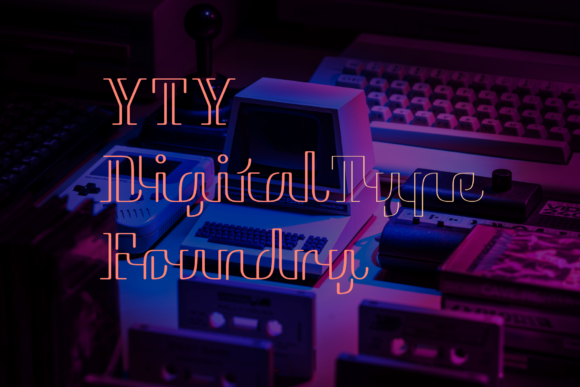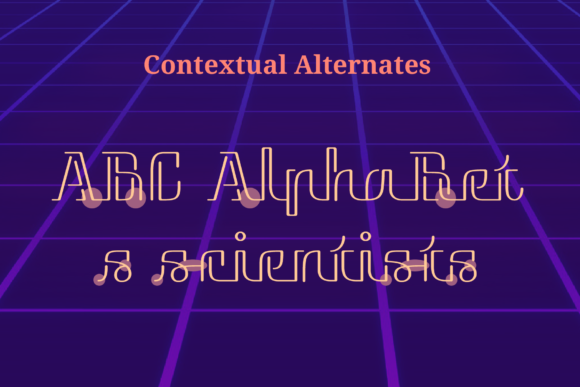
The Electlilywave Font: A Modern Design Game-Changer
I’ll never forget the moment I stumbled upon the perfect font for a project. I was working late, trying to meet a tight deadline, and my design was just not coming together. My client wanted something modern, edgy, and attention-grabbing, but I was stuck in a creative rut. That’s when I discovered Electlilywave – a cool, techno-looking display font that instantly elevated my design and made it shine. In this article, I’ll share my experience with Electlilywave, its features, and how to make the most of it in your designs.
An Honest Review of Electlilywave
So, what makes Electlilywave special? Here are some things I love about this font:
- ✨ Modern and edgy look: Electlilywave has a sleek, futuristic feel that’s perfect for tech, gaming, or innovative brand designs.
- ✅ Adaptable: This font works well in various design contexts, from headings and titles to logos and social media graphics.
- 💡 OpenType features: Electlilywave comes with a range of OpenType features, including stylistic alternates, glyphs, and ligatures, giving you plenty of creative options.
While Electlilywave is an excellent font, it’s not without its quirks:
- 🤔 Limited use in body text: Due to its bold and stylized nature, Electlilywave might not be the best choice for lengthy body text. It’s ideal for headings and titles, though!
- ⚠️ Requires careful kerning: As with any bold font, kerning can be a bit tricky. Make sure to adjust the spacing to ensure your text looks balanced and polished.
The Backstory of Electlilywave
Electlilywave was designed by a team of creatives who wanted to create a font that embodies the spirit of innovation and modernity. Inspired by the world of technology and futurism, they crafted a font that’s both bold and elegant. The result is a versatile font that’s perfect for a wide range of design applications.
| Font Name | Electlilywave Font |
| Author | YTY Digital TypeFoundry |
| What type of designs is Electlilywave best suited for? | Electlilywave is ideal for designs that require a modern, edgy look, such as tech, gaming, or innovative brand designs. |
| Can I use Electlilywave for body text? | While Electlilywave can be used for body text, it’s recommended to use it for headings and titles due to its bold and stylized nature. |
| Does Electlilywave support OpenType features? | Yes, Electlilywave comes with a range of OpenType features, including stylistic alternates, glyphs, and ligatures. |